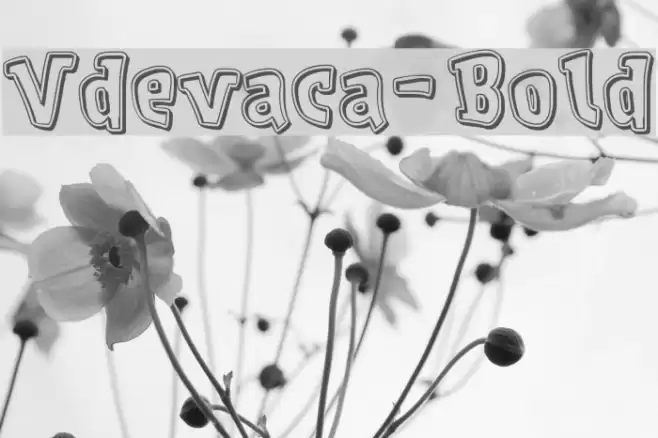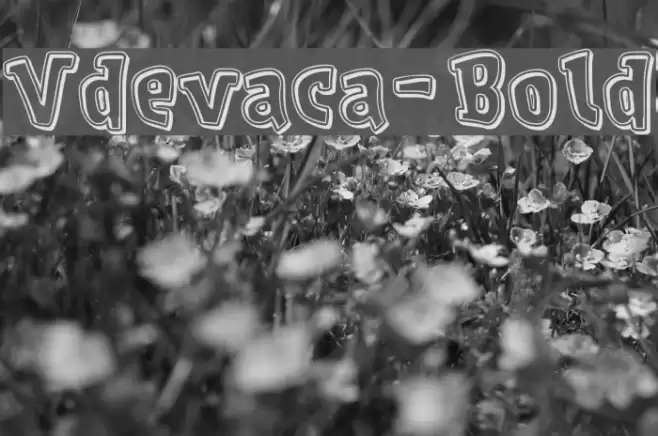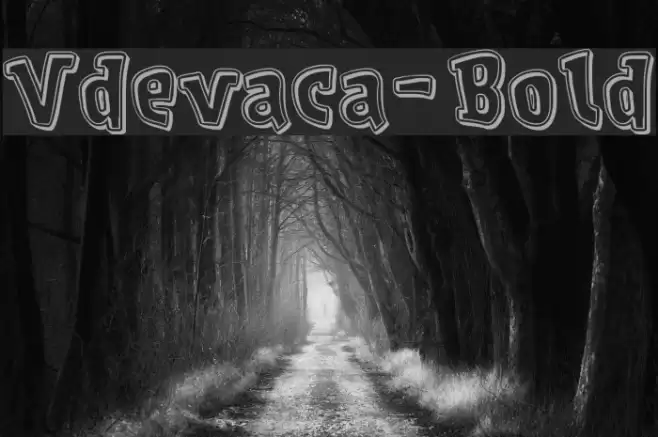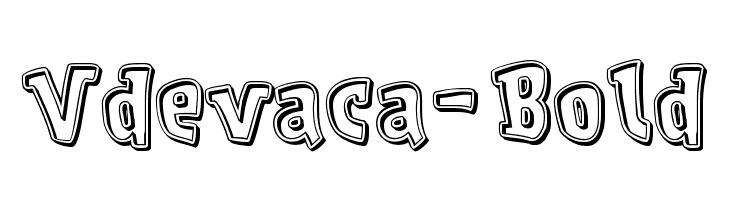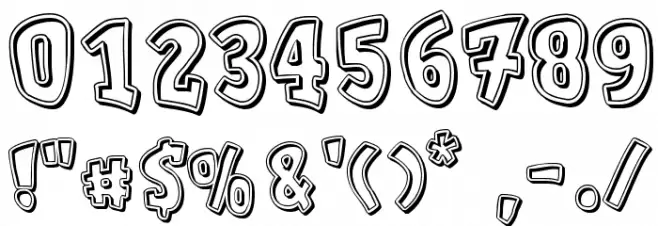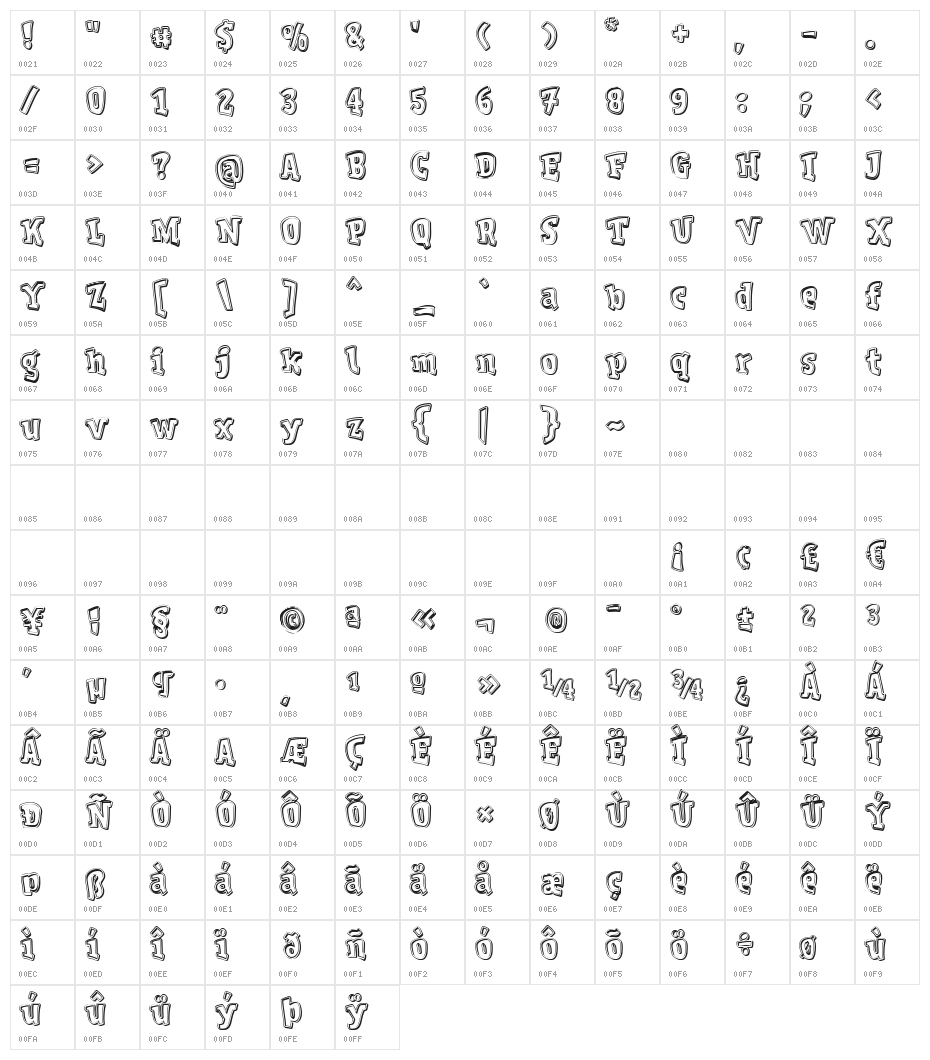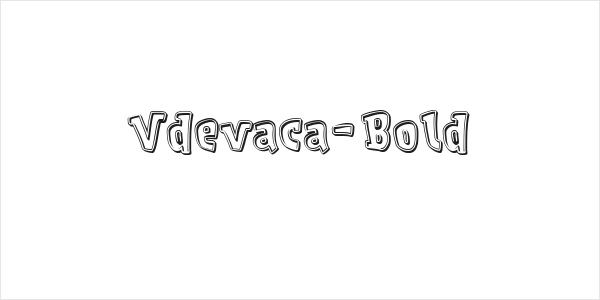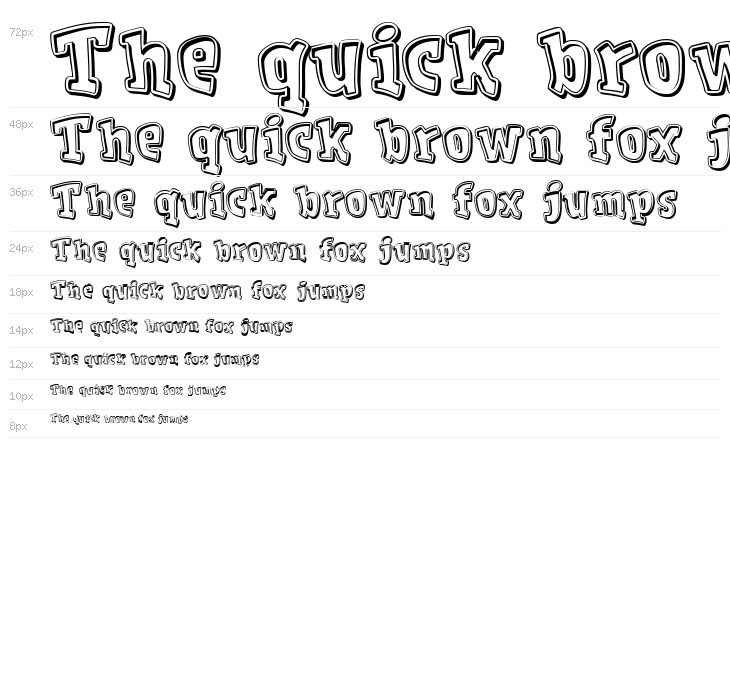
Vdevaca-Bold Font
Vdevaca-Bold Description
This font features a bold and playful design with a three-dimensional effect created by its thick outlines and shadowing. The characters are rounded and slightly irregular, giving them a whimsical and cartoonish appearance. The uppercase and lowercase letters maintain a consistent style, with exaggerated curves and a sense of movement. Numbers and special characters follow the same playful aesthetic, making the font suitable for creative and informal applications. Its unique style is eye-catching and adds a fun, dynamic element to any design.
A bold, playful font with a 3D effect and cartoonish style from Cartoon fonts.
- Proposed Projects: Ideal for children's books, comic strips, playful branding, and event posters.
- Overall Style: Playful, Cartoonish, Fun